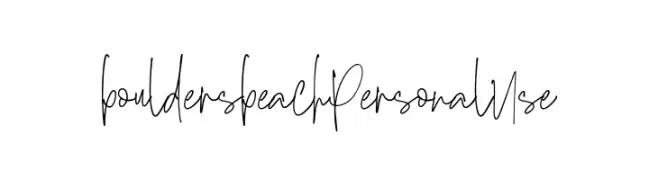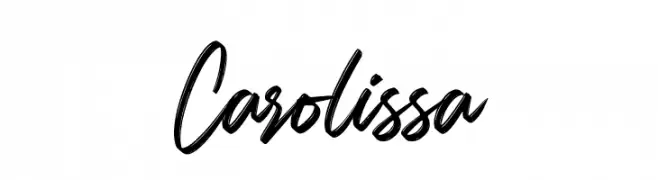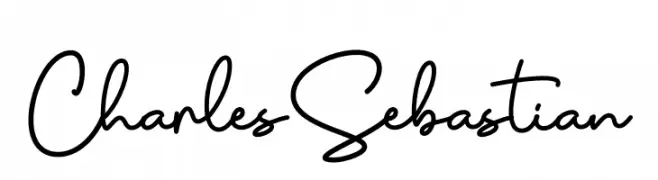
A dynamic, expressive handwritten font with fluid, cursive letterforms.
A lively handwritten script with fluid, continuous strokes and a personal touch.
A playful, handwritten font with a casual and informal style.
A flowing, handwritten font with a casual and artistic style.
A casual, handwritten font with a fluid and natural flow.
A dynamic brush script font with expressive, hand-painted style.
A dynamic handwritten font with fluid strokes and a playful, elegant flair.
A playful, handwritten cursive font with thin, elongated strokes.
A casual, handwritten font with a playful and informal style.
A dynamic handwritten font with fluid strokes and natural flow.